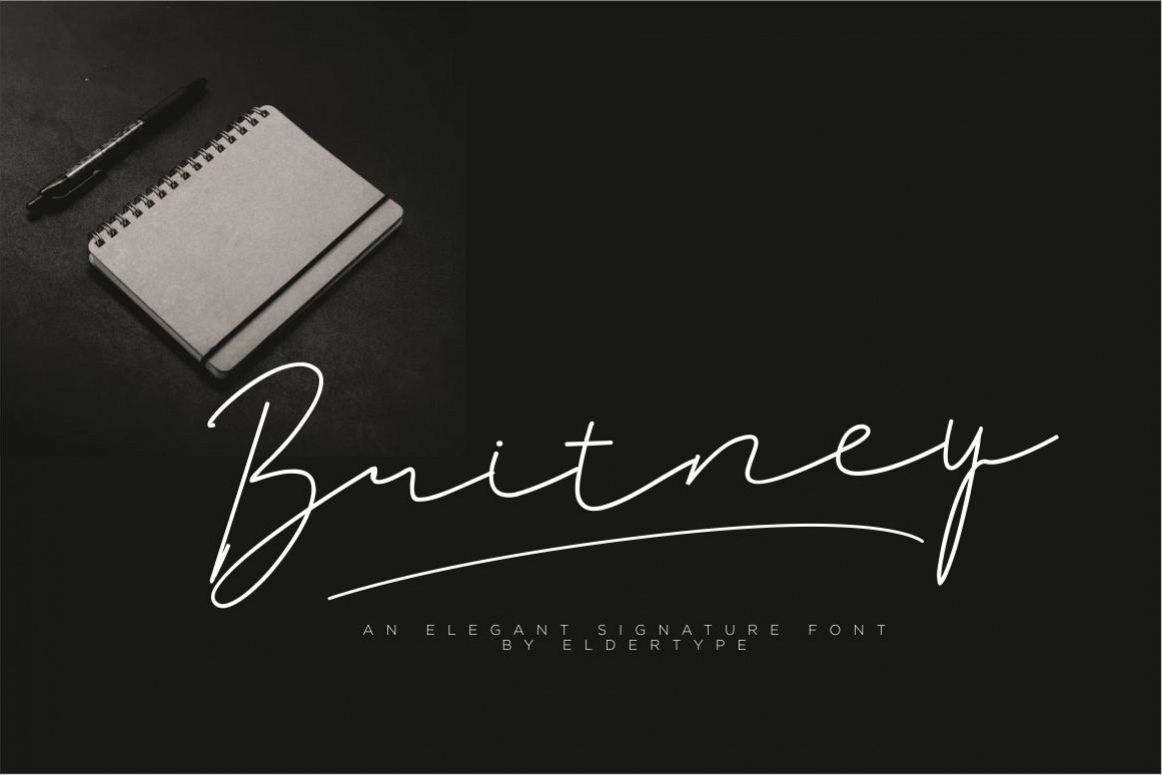
Britney Signature Font
BritneySignature-Regular
Britney is a thin signature font with elegent and professional style, perfect for adding some romance and charm to your designs. This script functions most strongly as a display or headline font. suitable for logo, logotype, branding,wedding, fashion, label, book cover, t-shirt, instagram post, and other